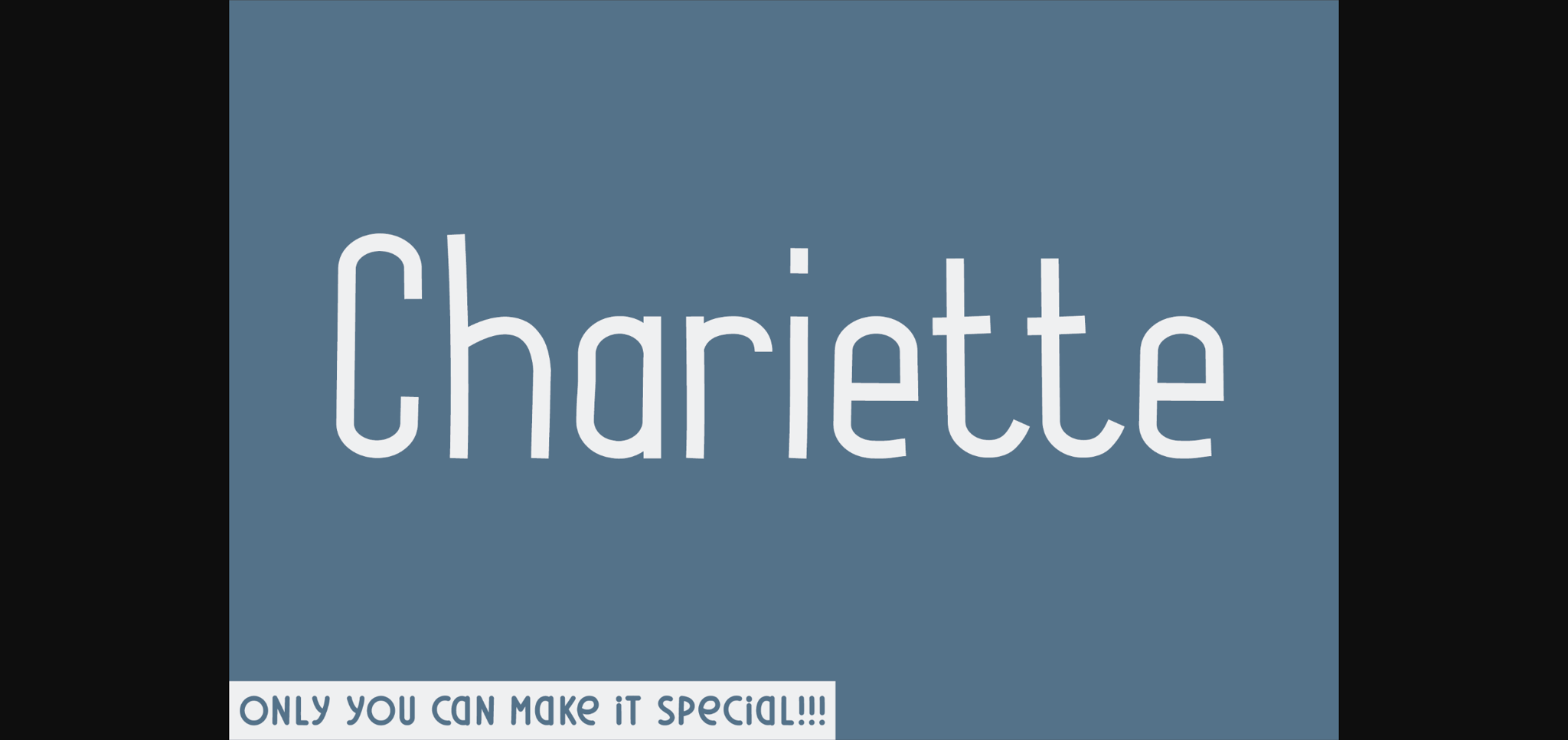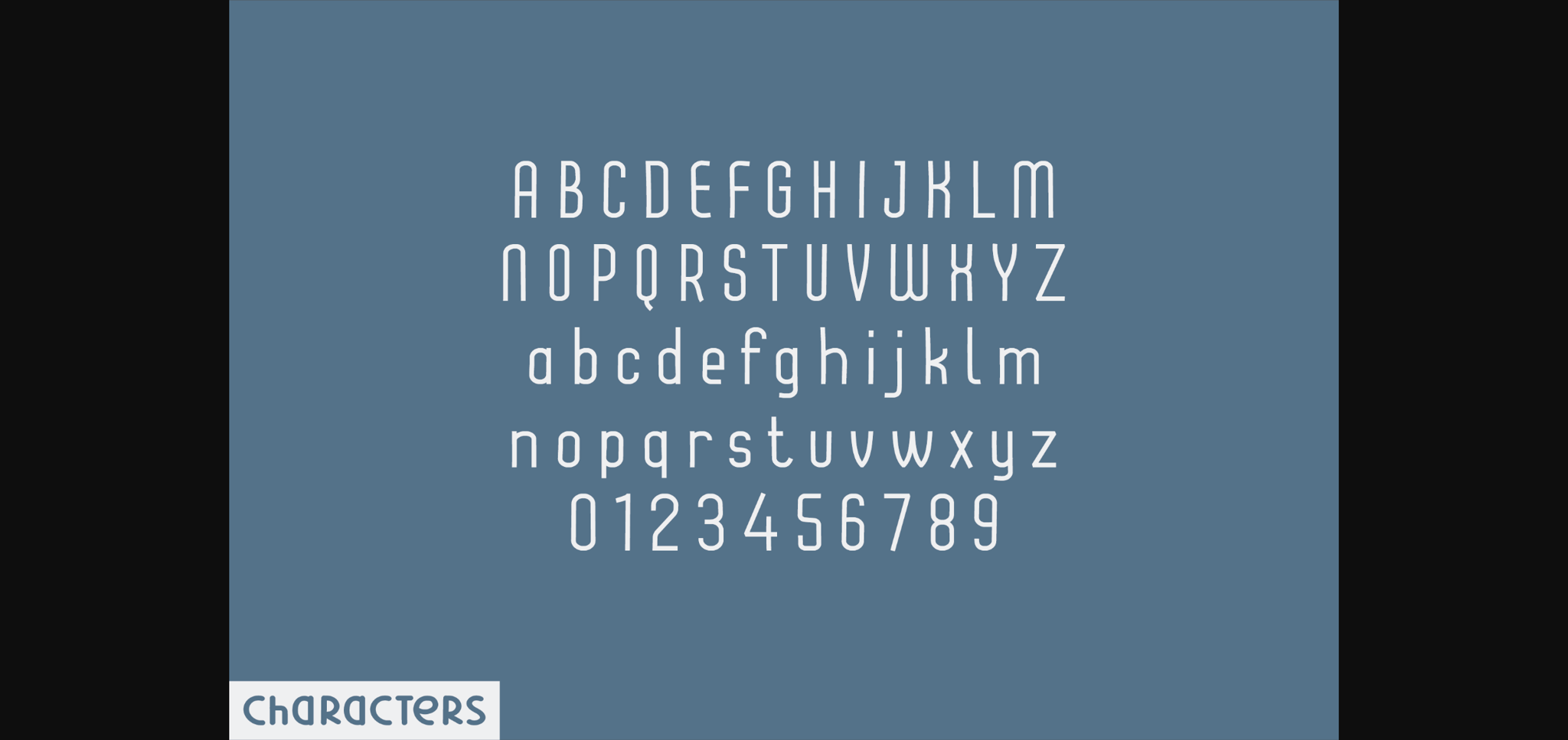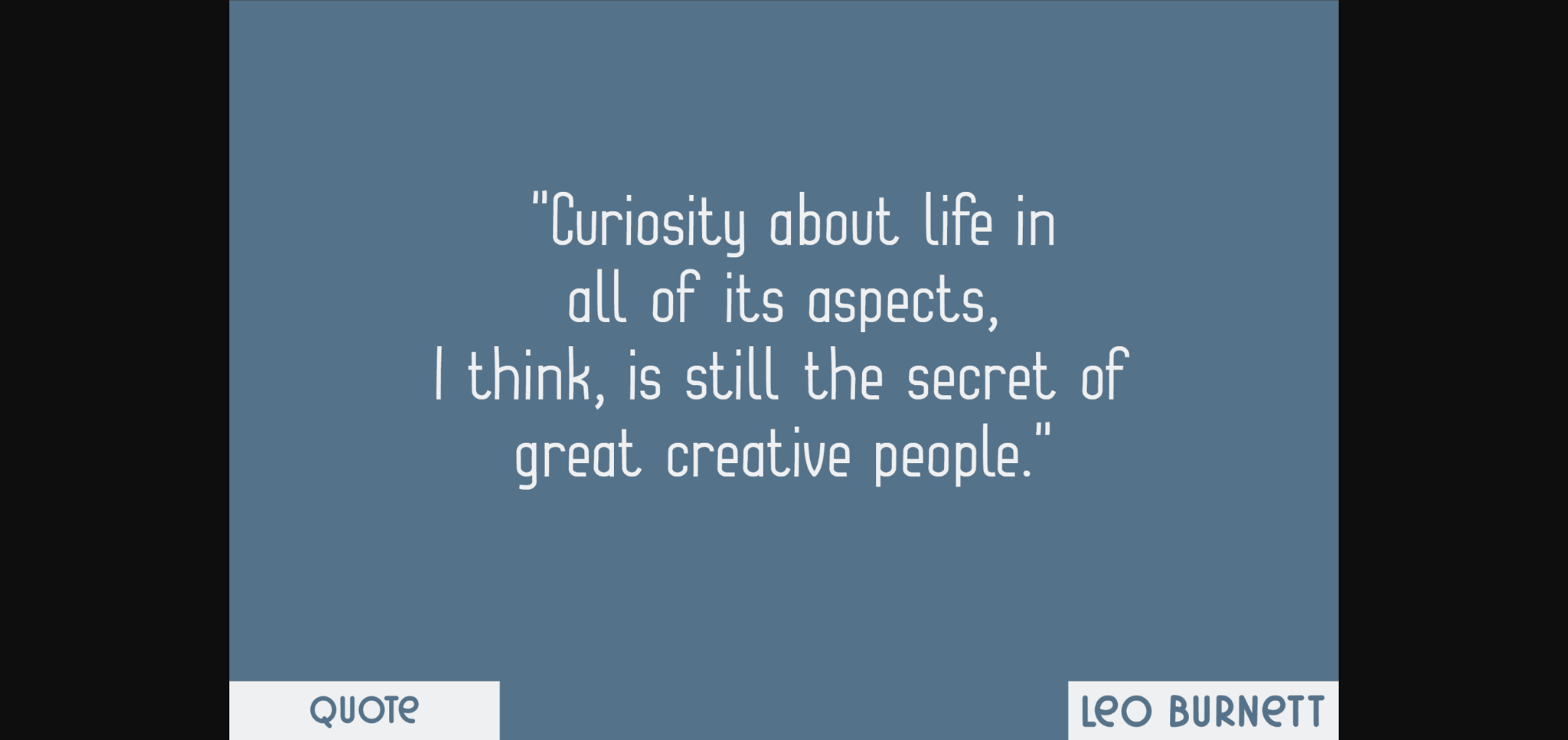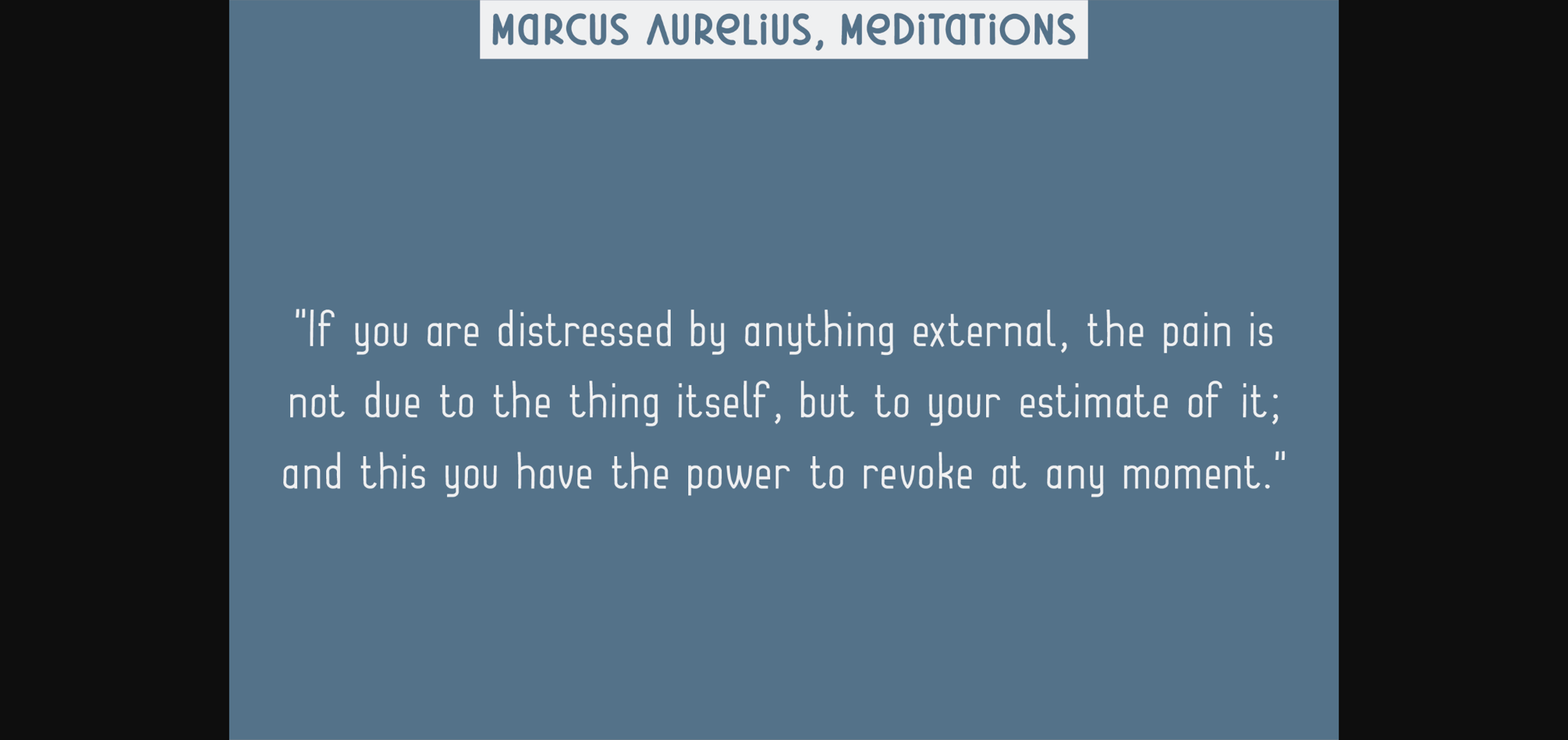
Chariette Font
About Chariette Font
Elegant with a dash of audacious spirit, Chariette is a captivating handwritten sans-serif font that seamlessly fuses panache and professionalism. Comprising an artful selection of upper case, lower case, numbers, and functional letters, Chariette teases the eye with its endearing simplicity and robust character. With its balanced blend of whimsy and gravity, each letter’s graceful finish exudes a discreetly commanding presence. From evoking relaxed elegance to underscoring a vivid sense of individuality, Chariette fits seamlessly into any design craving a refreshing touch of distinctiveness. Cherish the harmonious interplay of casual and formal, uniquely embodied within Chariette.